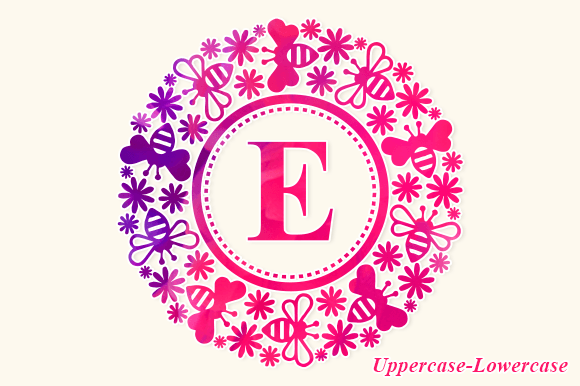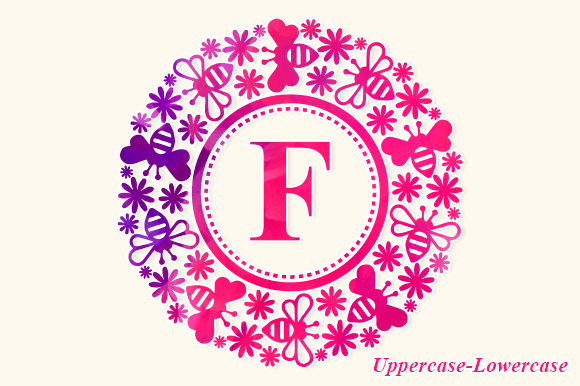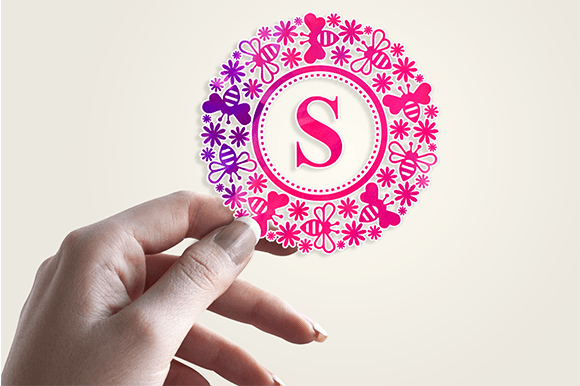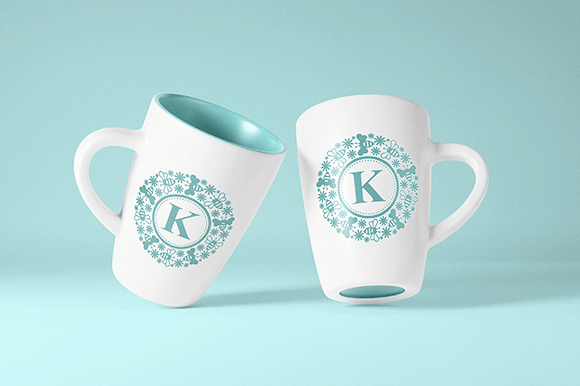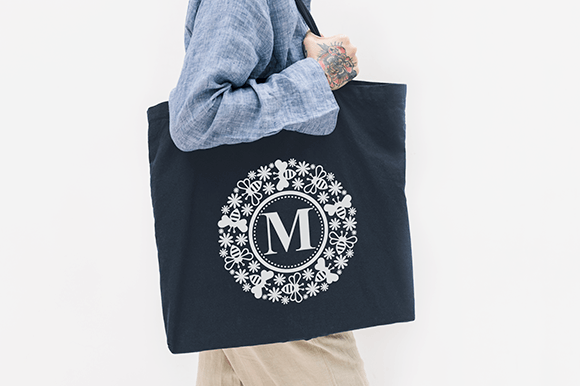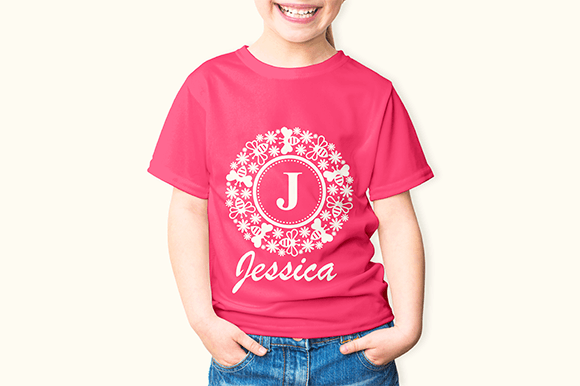
Bee Flower Monogram Font: Elevate Your Designs with Elegance
Are you a designer or crafter looking for a unique and elegant font to elevate your creative projects? Look no further than the Bee Flower Monogram Font. This beautiful decorative font features lovely ornaments that will add a touch of sophistication and charm to your designs. In this article, we’ll explore the features and benefits of the Bee Flower Monogram Font and how you can use it to create stunning stationary art, social media posts, and greeting cards.
What is Bee Flower Monogram Font?
Bee Flower Monogram Font is a decorative font that boasts an elegant and authentic feel. Its unique design features lovely ornaments that will make your designs stand out from the crowd. The font is perfect for creating beautiful stationary art, eye-catching social media posts, and cute greeting cards. Whether you’re a professional designer or a crafty hobbyist, this font is sure to inspire your creativity.
Key Features of Bee Flower Monogram Font
- Elegant Design: The Bee Flower Monogram Font features an elegant and sophisticated design that will add a touch of luxury to your projects.
- Lovely Ornaments: The font includes lovely ornaments that will make your designs stand out and add a touch of whimsy.
- Authentic Feel: The font has an authentic feel that will transport your designs to a bygone era.
- Versatile: The Bee Flower Monogram Font is versatile and can be used for a variety of projects, from stationary art to social media posts and greeting cards.
Benefits of Using Bee Flower Monogram Font
Using the Bee Flower Monogram Font in your designs offers several benefits. Firstly, it will save you time and effort, as you won’t have to spend hours designing intricate ornaments and monograms from scratch. Secondly, it will add a touch of elegance and sophistication to your designs, making them stand out from the crowd. Finally, the font is easy to use and can be installed on your computer in just a few minutes.
Creative Ways to Use Bee Flower Monogram Font
The Bee Flower Monogram Font is a versatile font that can be used in a variety of creative projects. Here are some ideas to get you started:
- Stationary Art: Use the font to create beautiful stationary art, including greeting cards, invitations, and letterheads.
- Social Media Posts: Add a touch of elegance to your social media posts using the Bee Flower Monogram Font. It’s perfect for creating eye-catching graphics and quotes.
- Greeting Cards: Create cute and personalized greeting cards using the font. It’s perfect for special occasions, such as birthdays, weddings, and holidays.
- Branding: Use the font to create a unique and memorable brand identity for your business. It’s perfect for logos, business cards, and packaging.
In conclusion, the Bee Flower Monogram Font is a beautiful and elegant decorative font that will elevate your designs to the next level. Its unique design features lovely ornaments that will add a touch of sophistication and charm to your projects. Whether you’re a designer or crafter, this font is sure to inspire your creativity and help you create stunning stationary art, social media posts, and greeting cards. So why wait? Download the Bee Flower Monogram Font today and start creating!